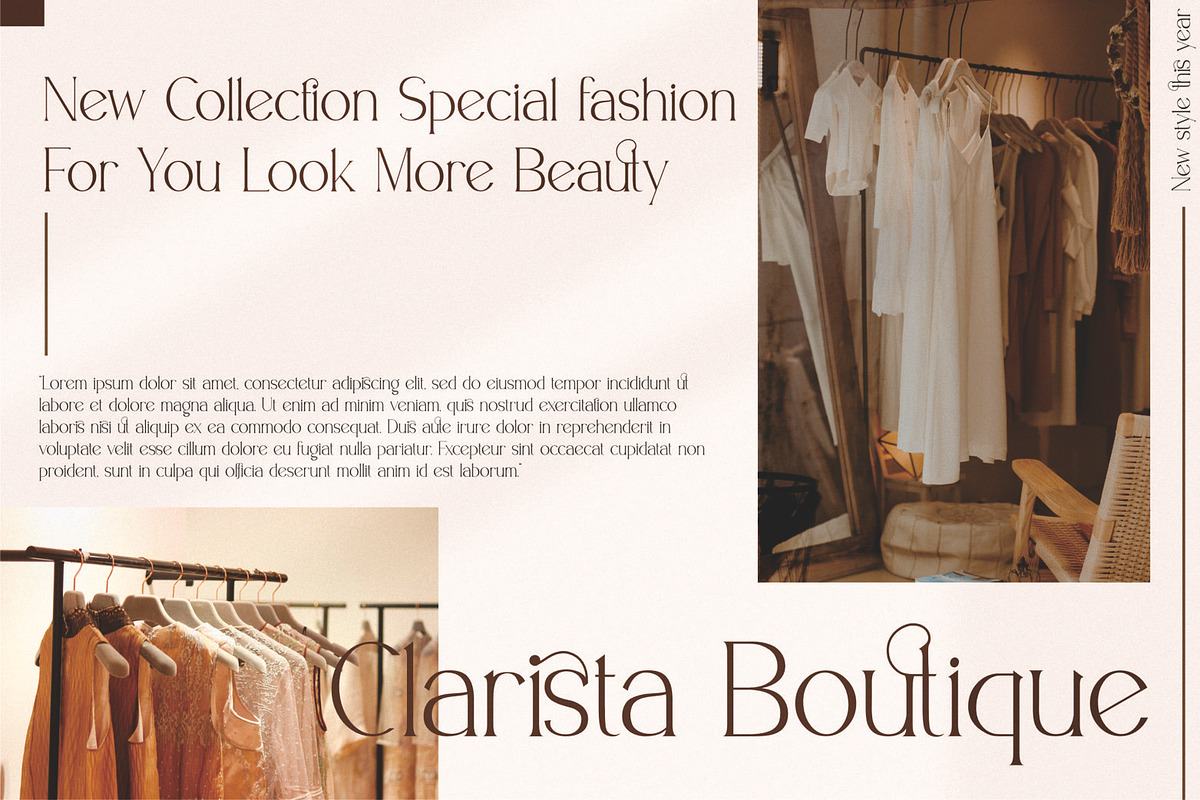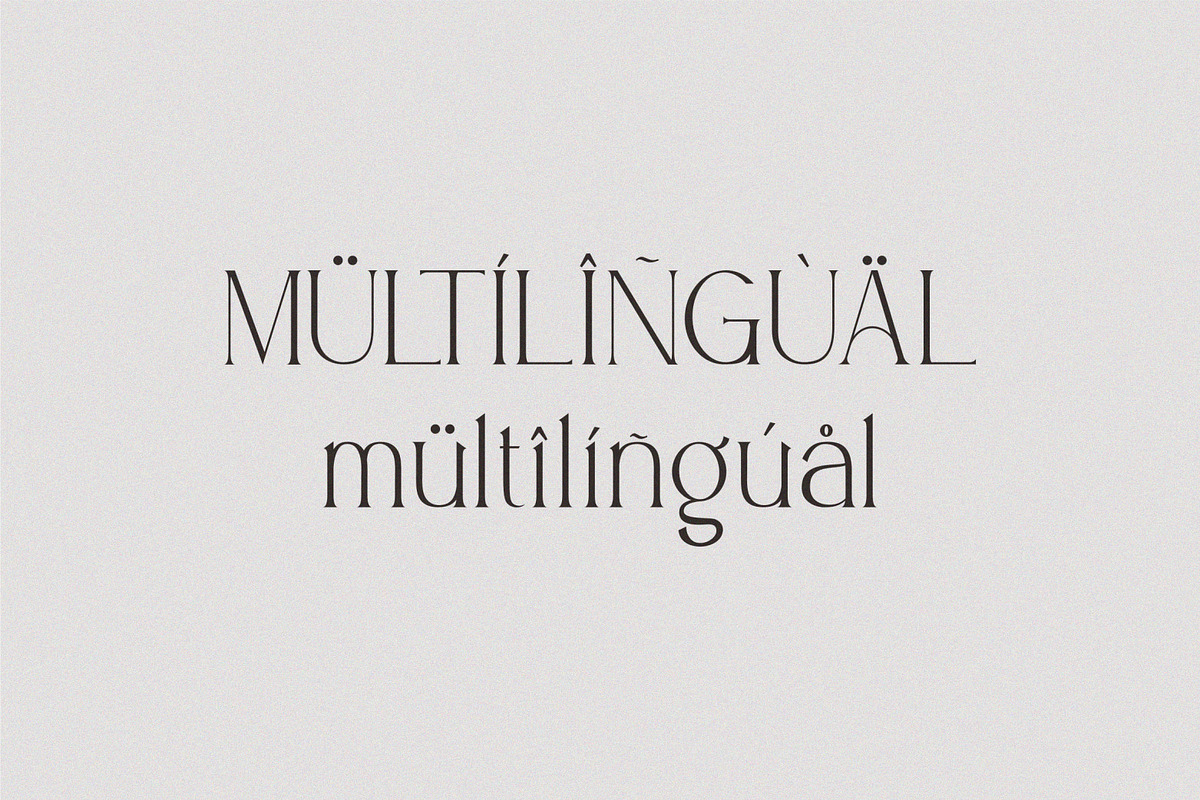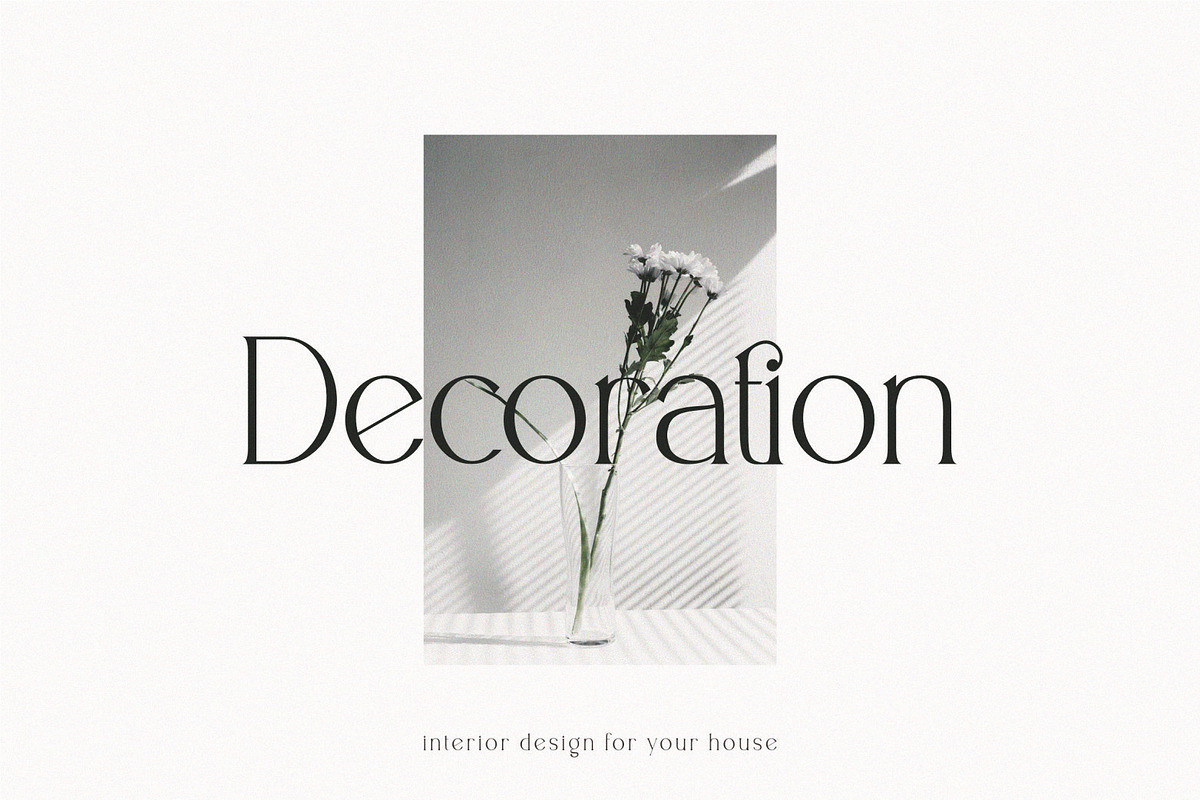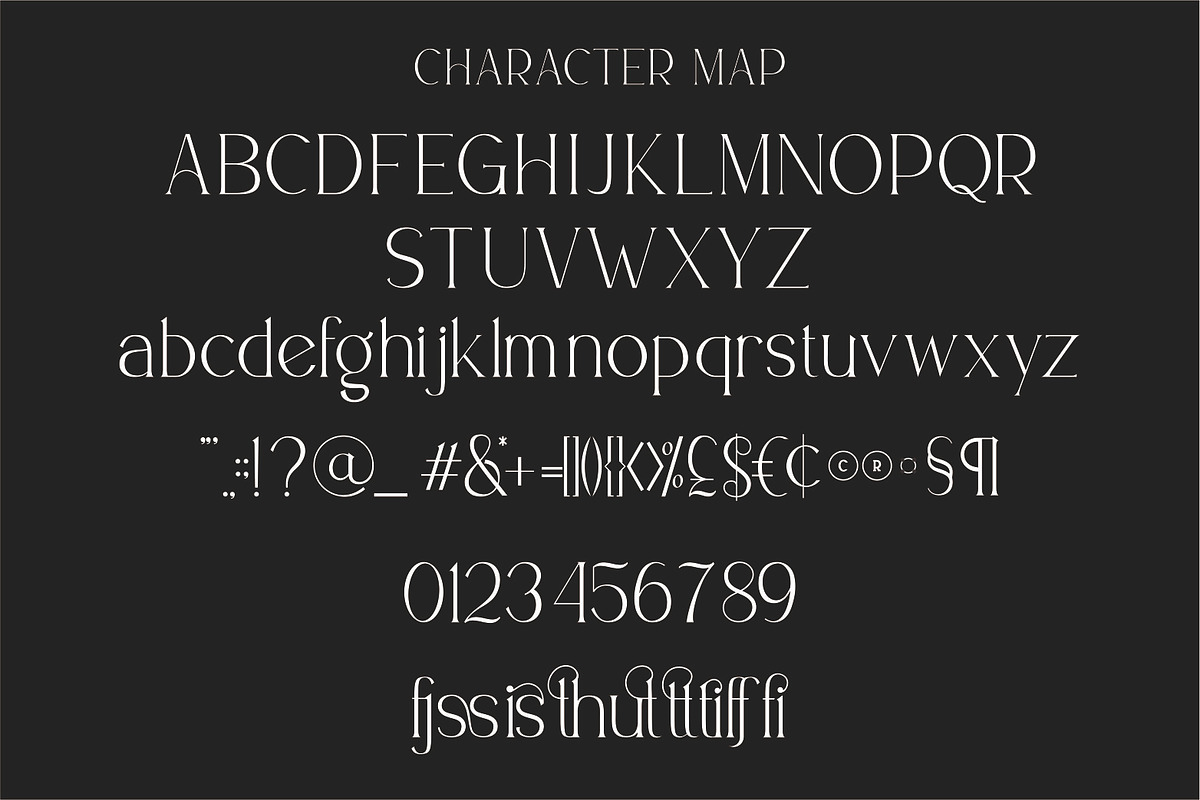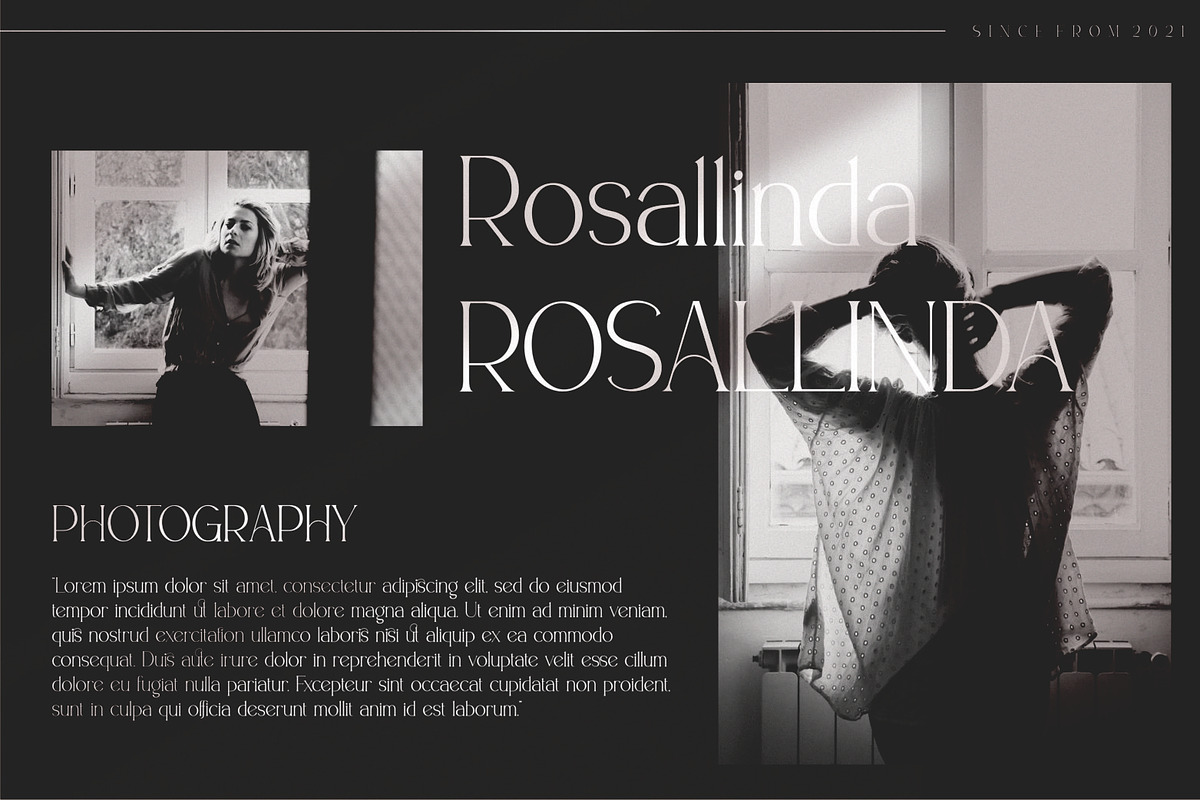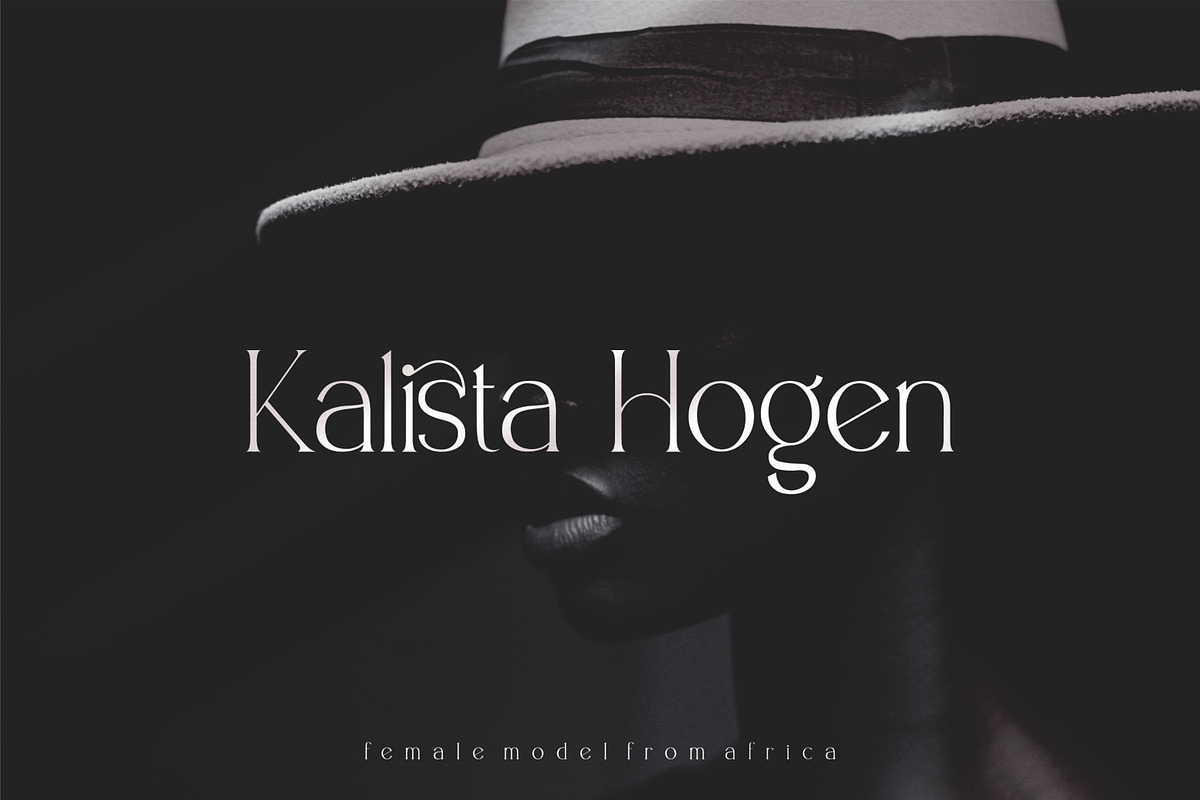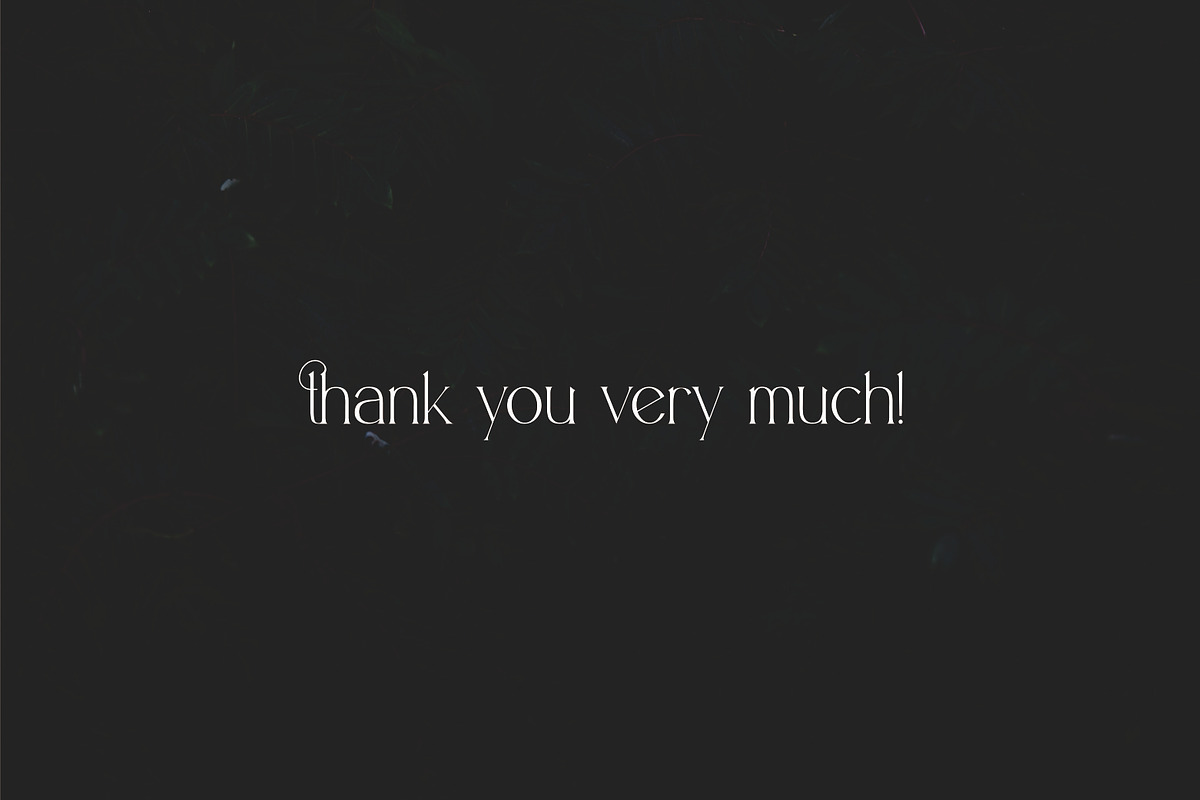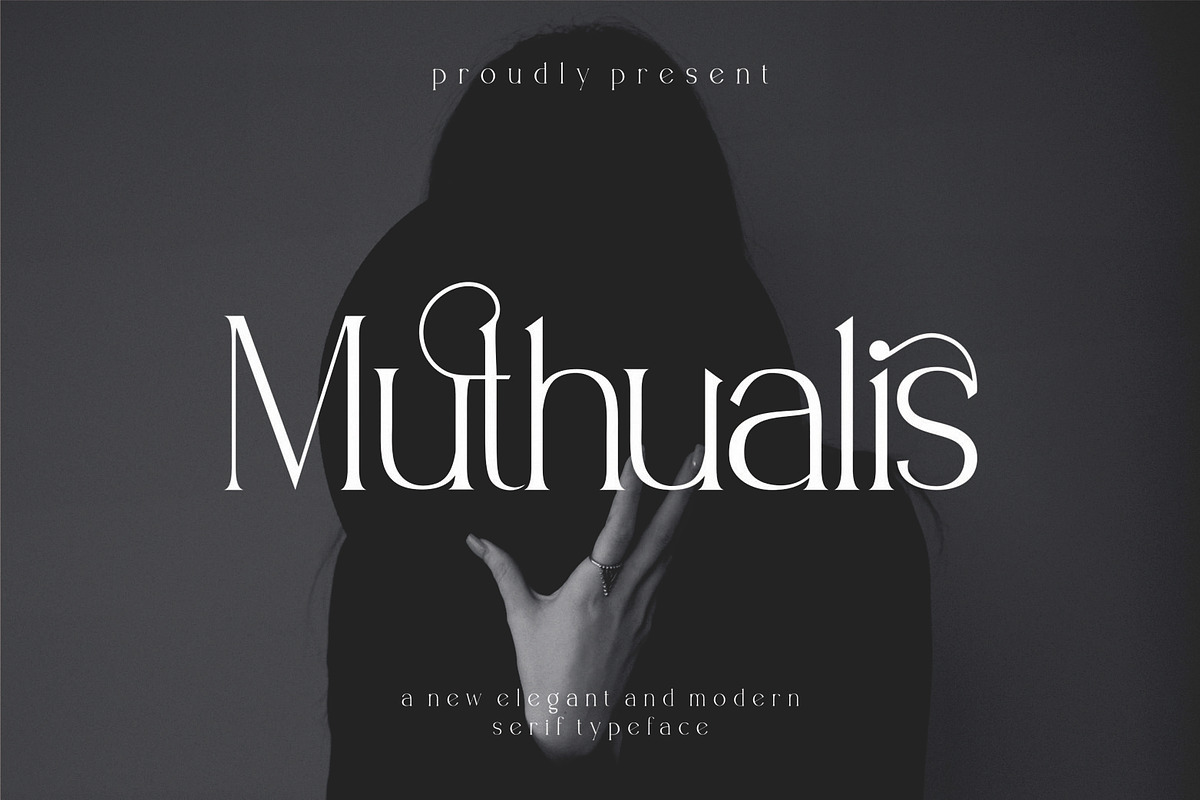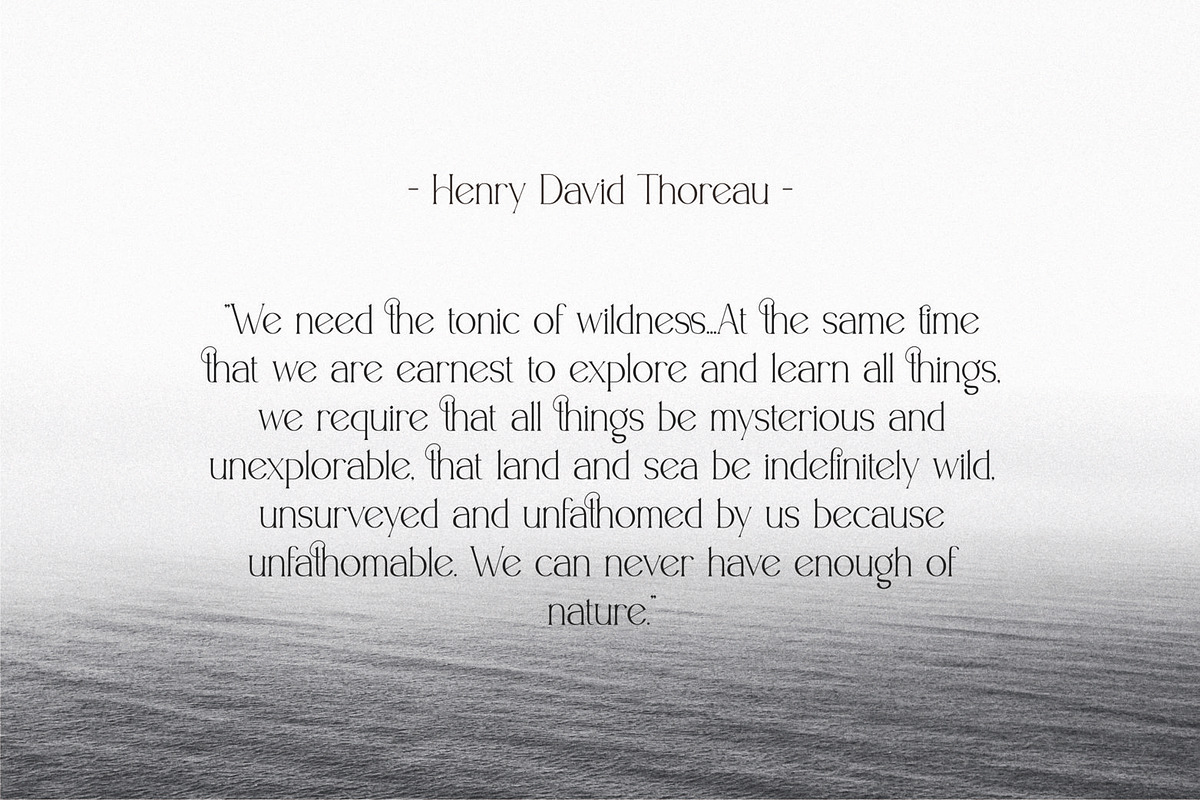
Muthualis Elegant Serif Font
Muthualis is a elegant display modern serif with beautiful contrast. Specially designed for fashion-themed projects, perfectly suitable for creating elegant, chic, lifestyle design such as logos, title, and magazine, and more. And this font have some creative ligature so make the font more premium. Files Includes: